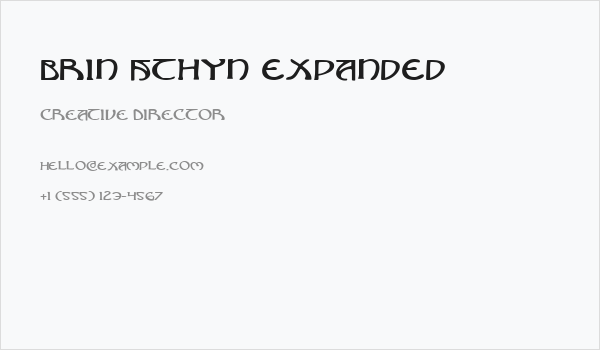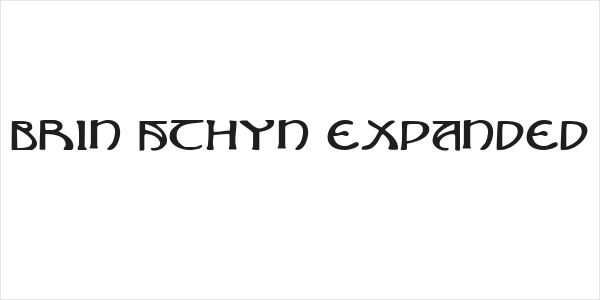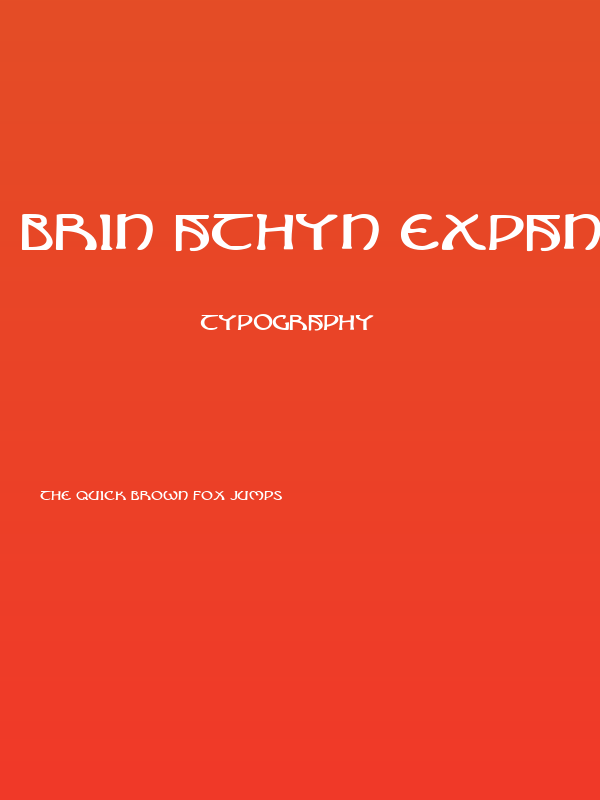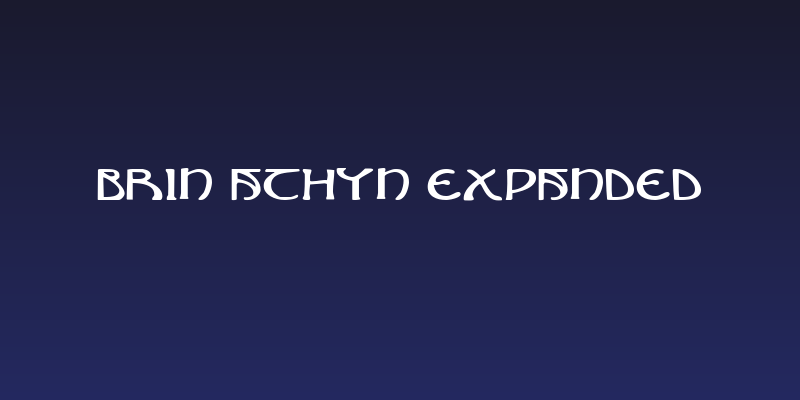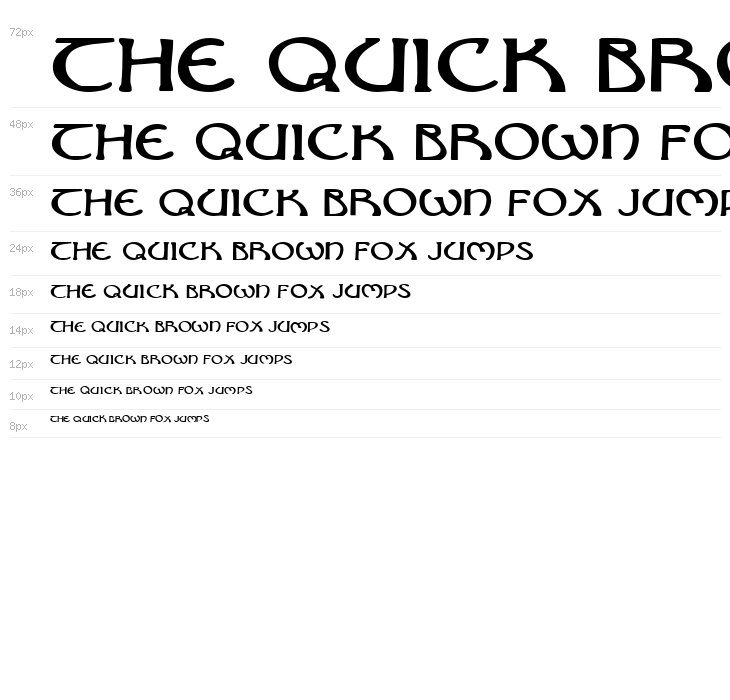
Brin Athyn Expanded Font
Brin Athyn Expanded Description
This font features a unique and artistic style with a blend of modern and decorative elements. The characters are bold and have a distinct flair, with curved and angular strokes that create a dynamic appearance. The uppercase letters are particularly striking, with some characters featuring extended serifs and others having a more rounded form. The lowercase letters maintain the same artistic style, ensuring consistency throughout the typeface. The numbers are equally bold and follow the same design principles, making them stand out. Special characters are included, adding versatility to the font's use. Overall, this font is eye-catching and suitable for creative projects.
| Proposed Projects | Ideal for branding, posters, headlines, and any creative project requiring a bold statement. |